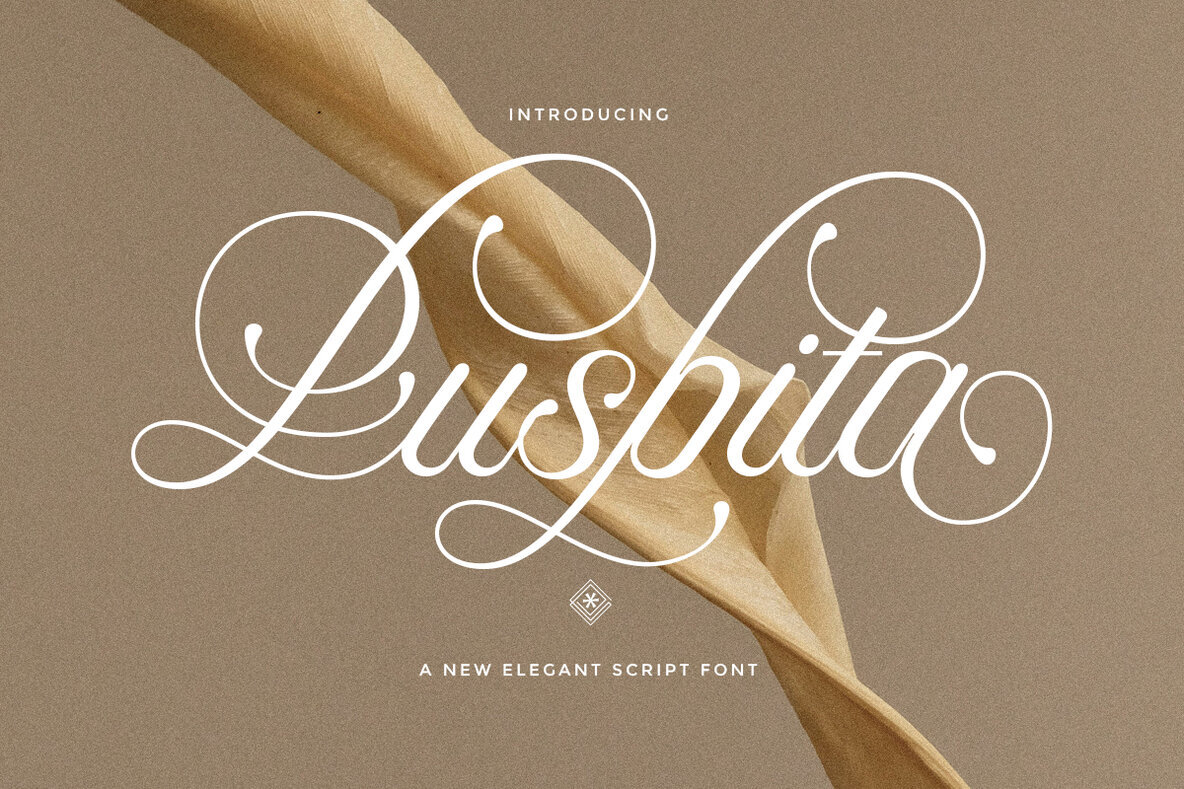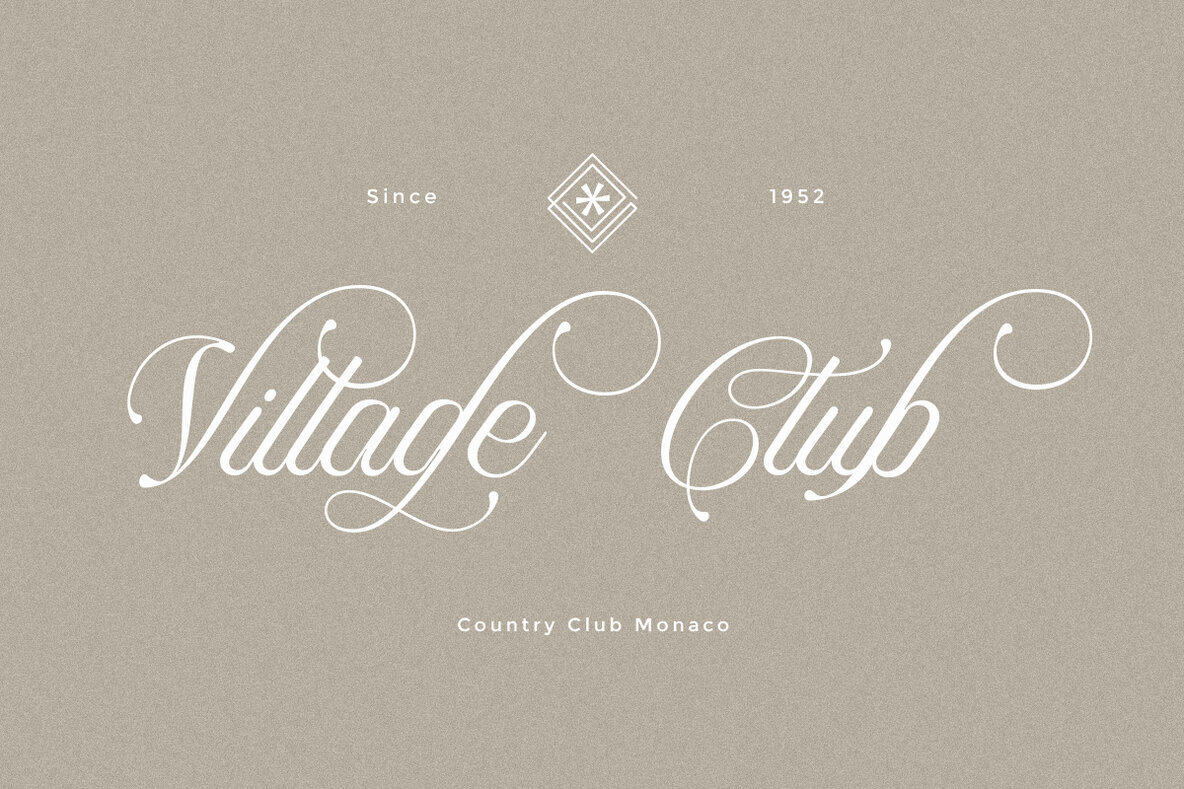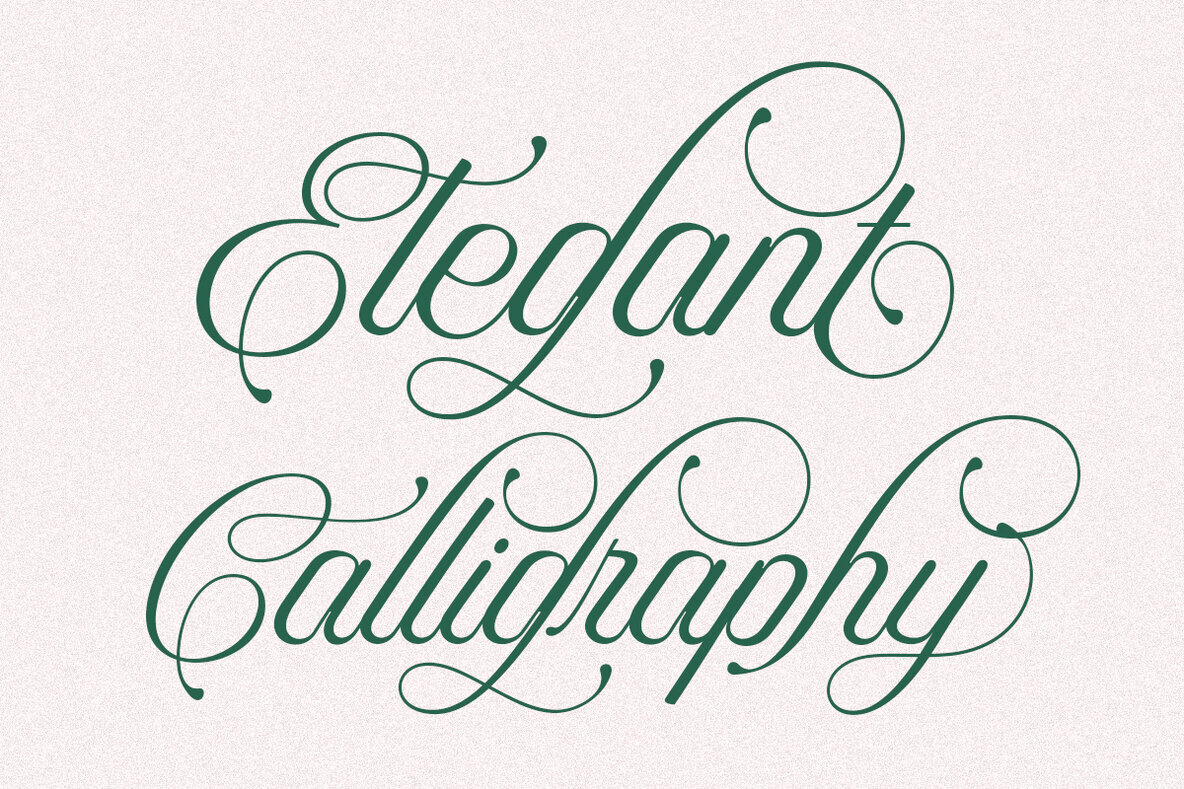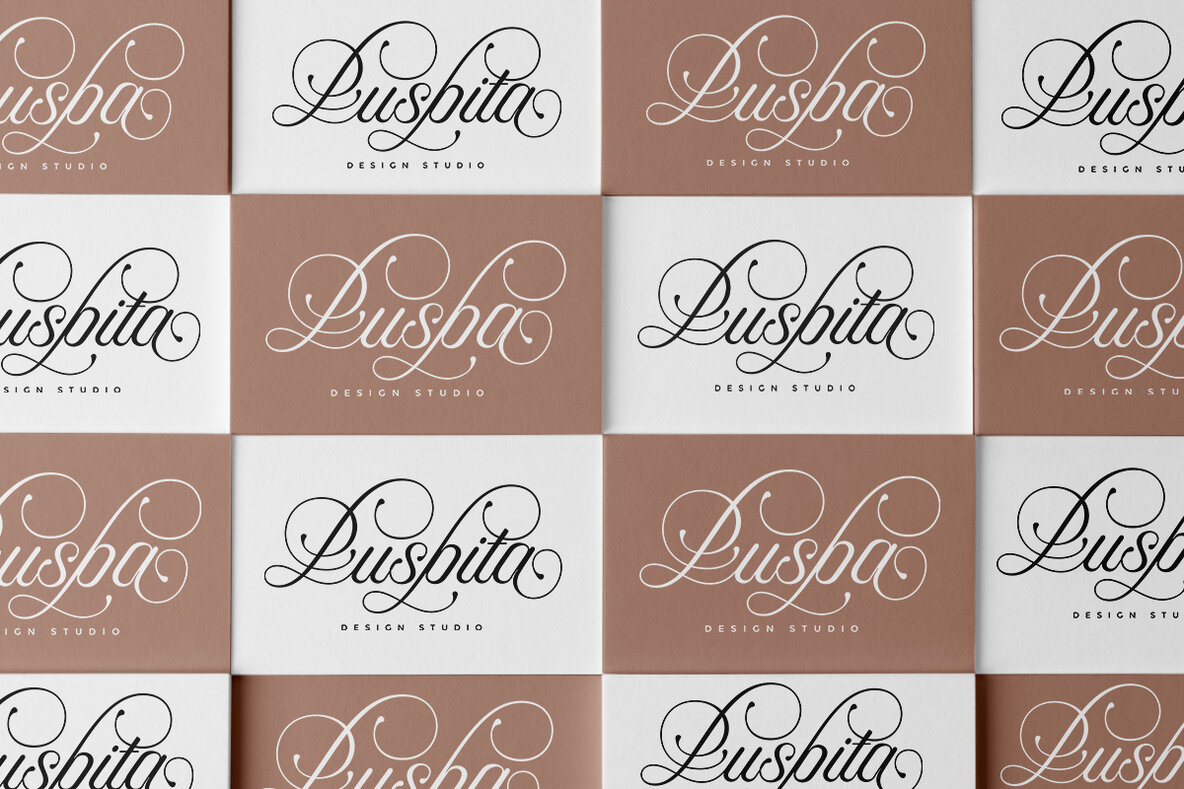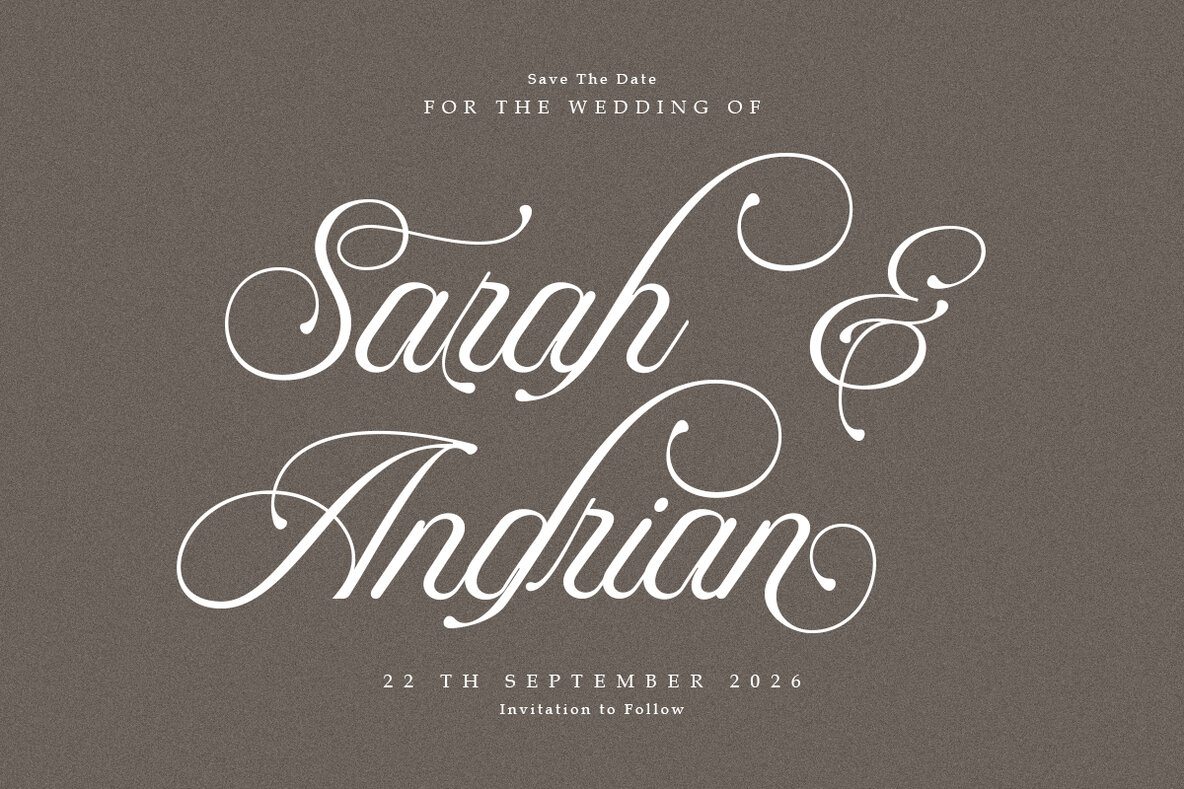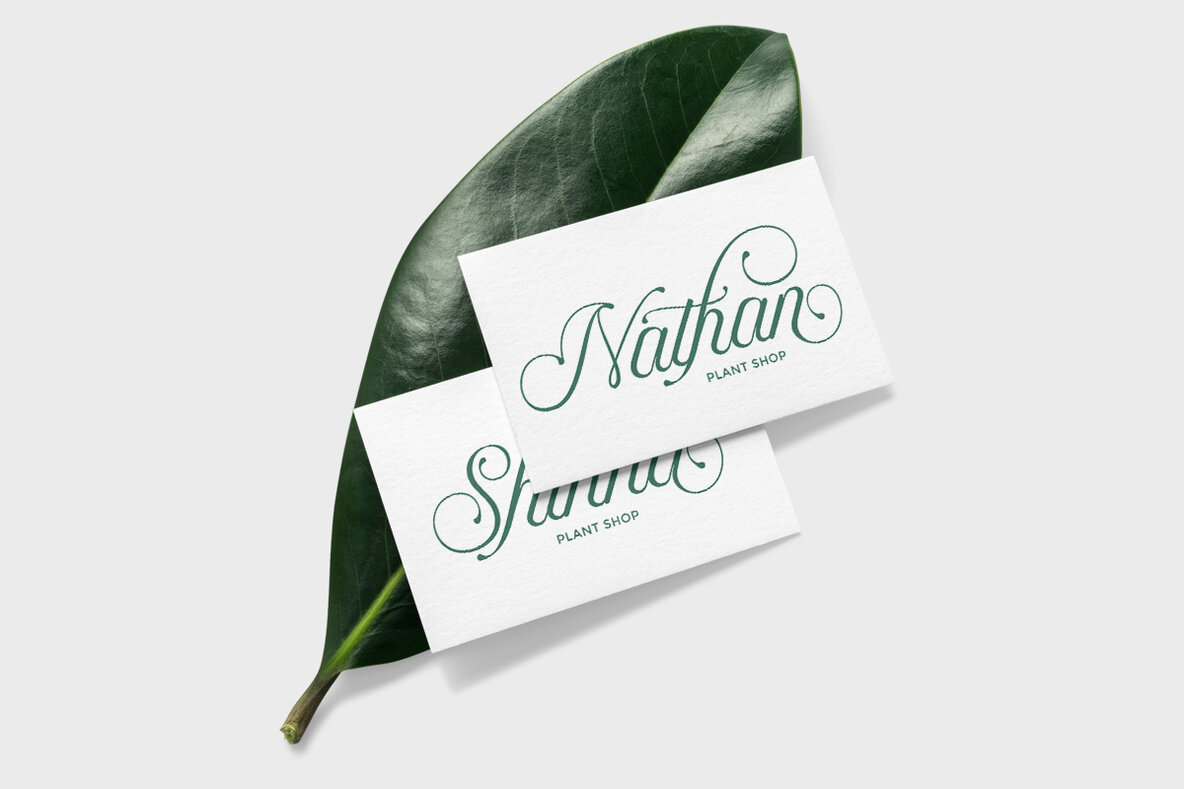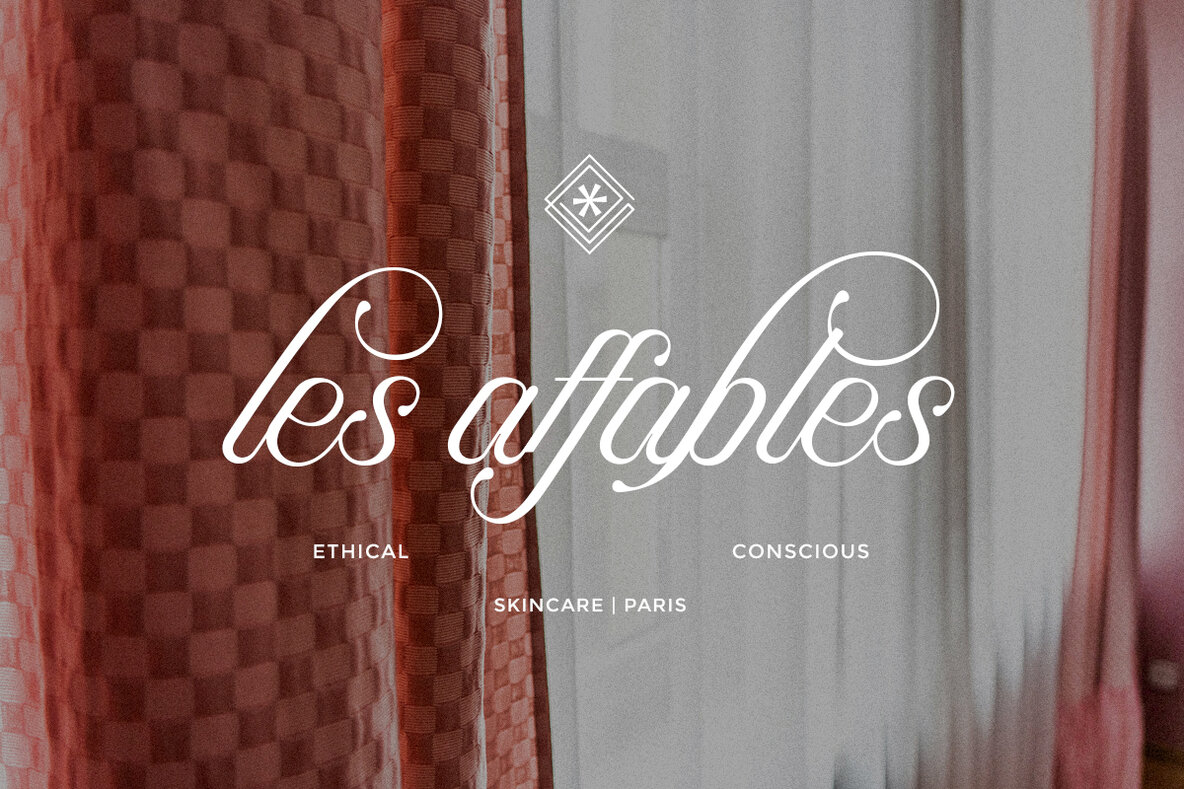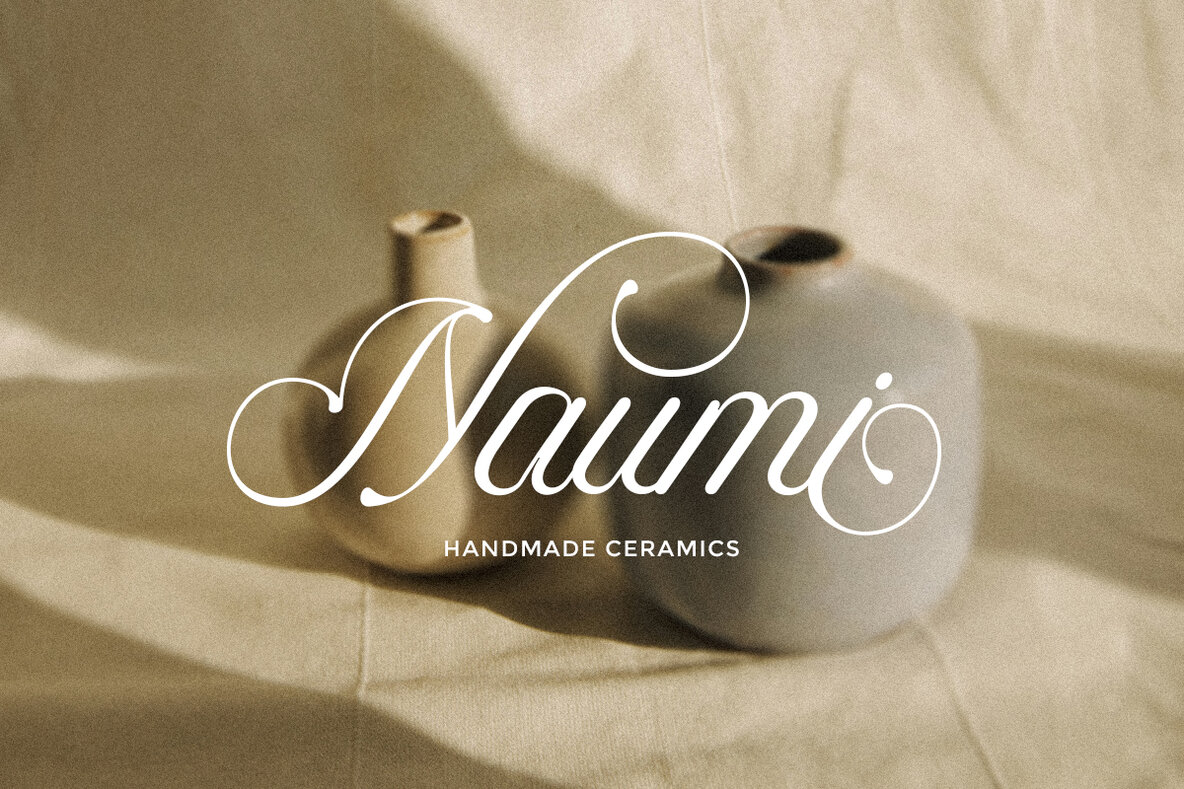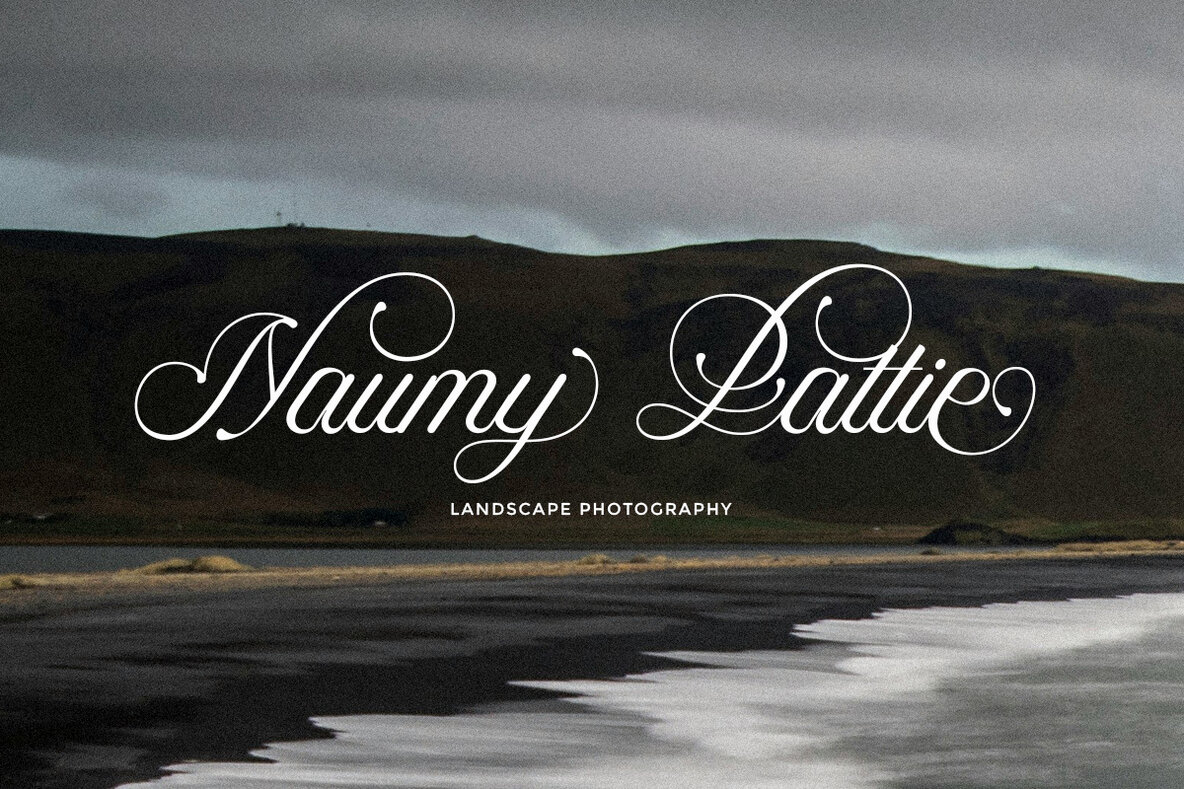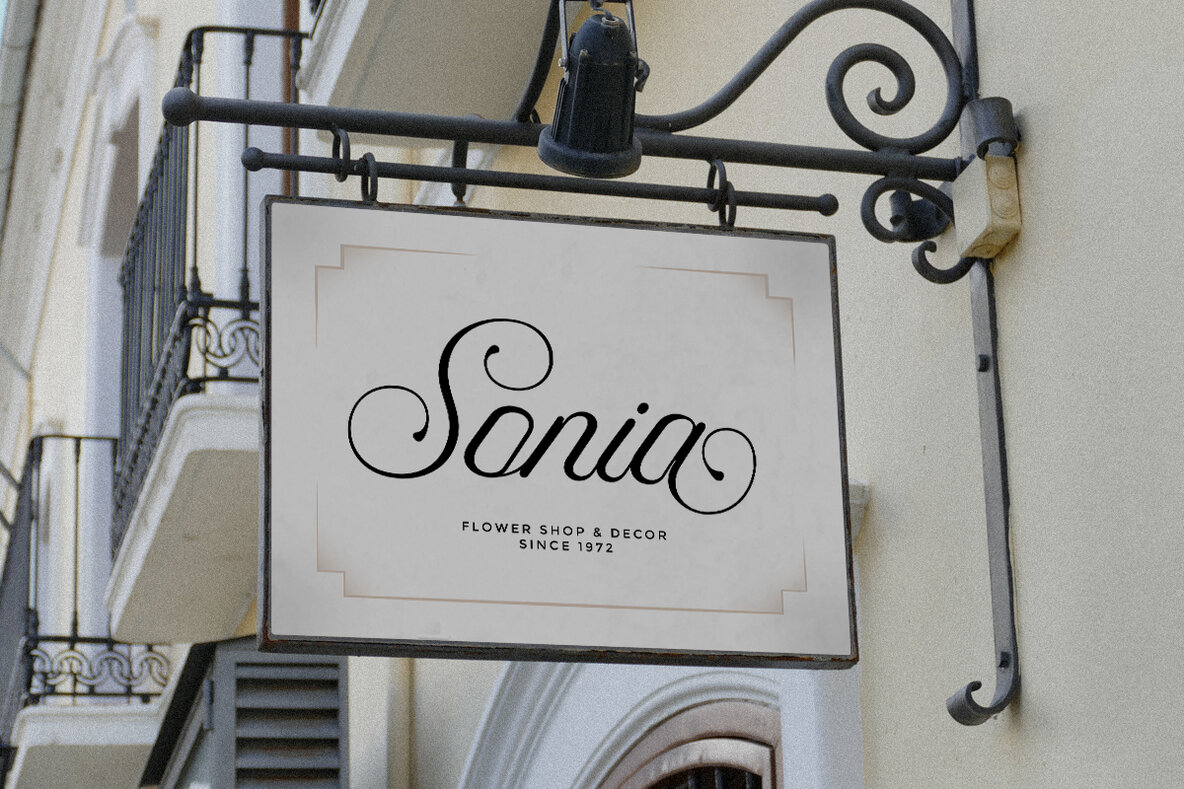
Puspita Script Font
Explore the elegance and sophistication of Puspita Script, a classic font by LetterFresh Studio that brings a refined touch to any design project. Ideal for brand identities, elegant invitations, product labels, apparel designs, and more, this versatile script adds a distinguished flair wherever it's used. Unlock the font's full potential by utilizing software that supports OpenType features, granting you the creative freedom to personalize your design endeavors with precision and finesse.Puspita Script: A Timeless Choice for Elegance
Unmatched Versatility and Style